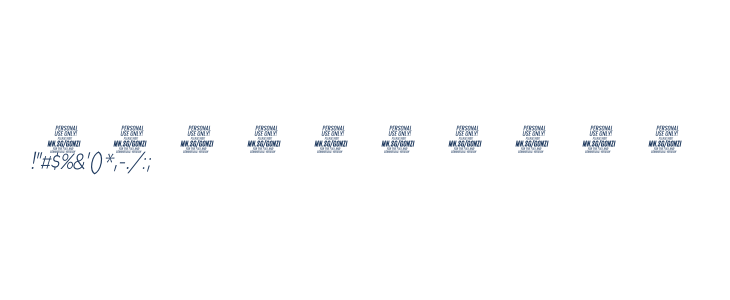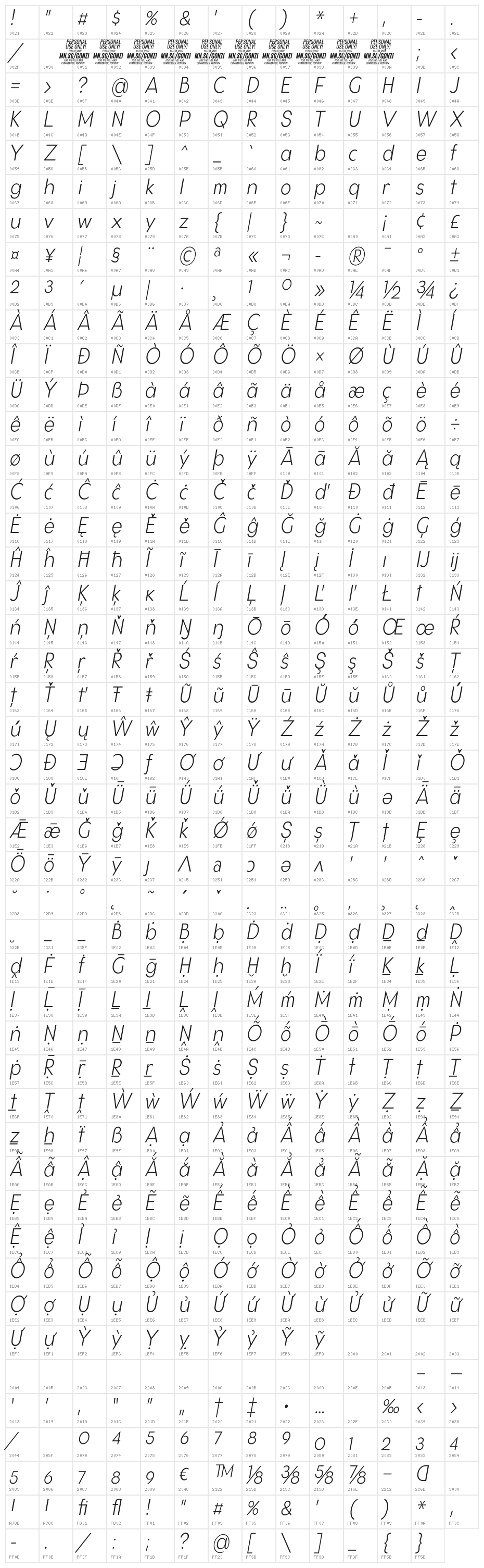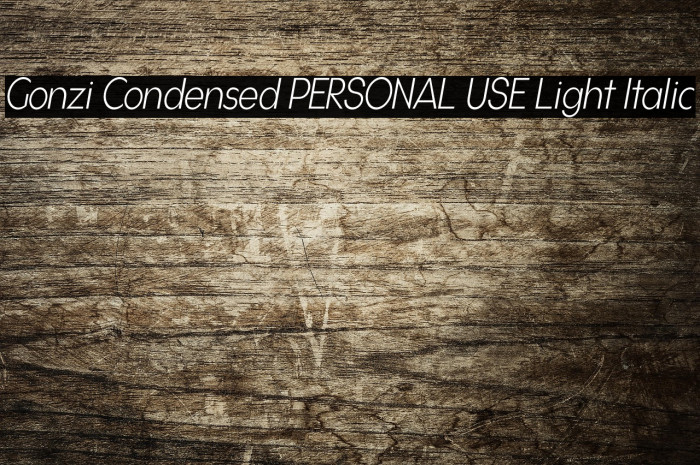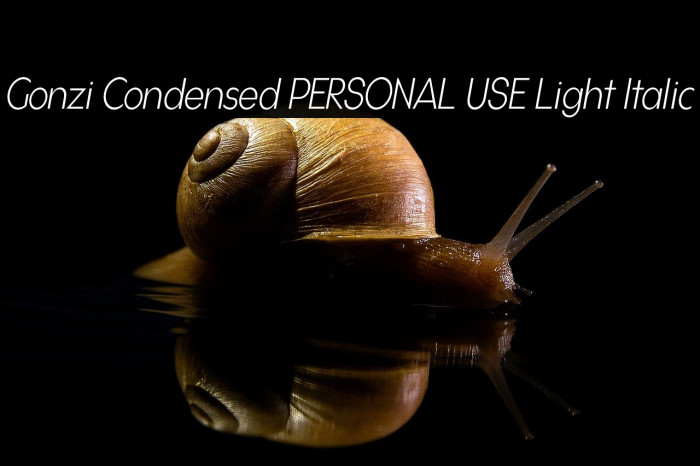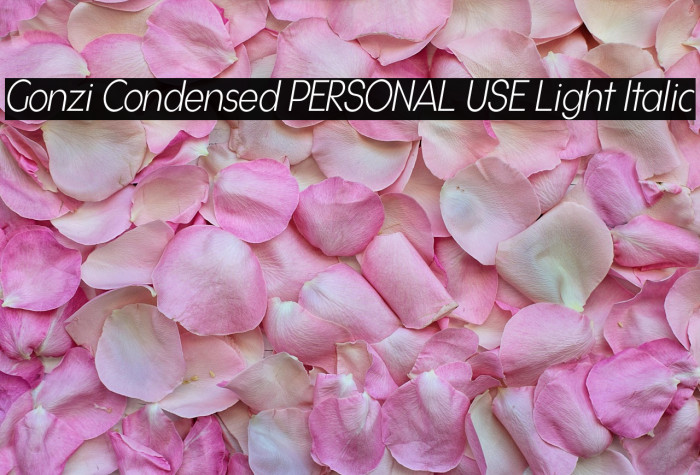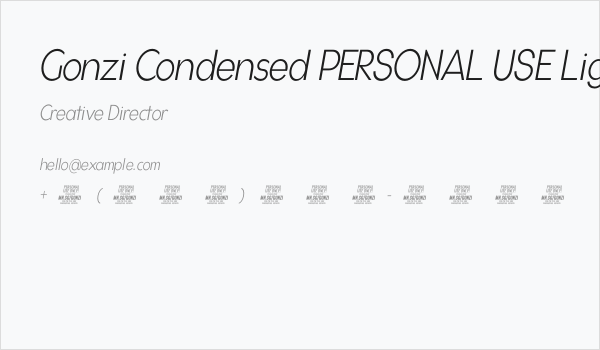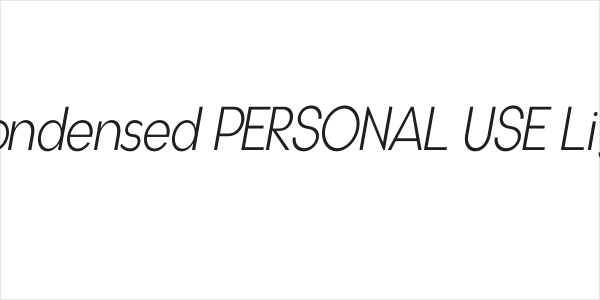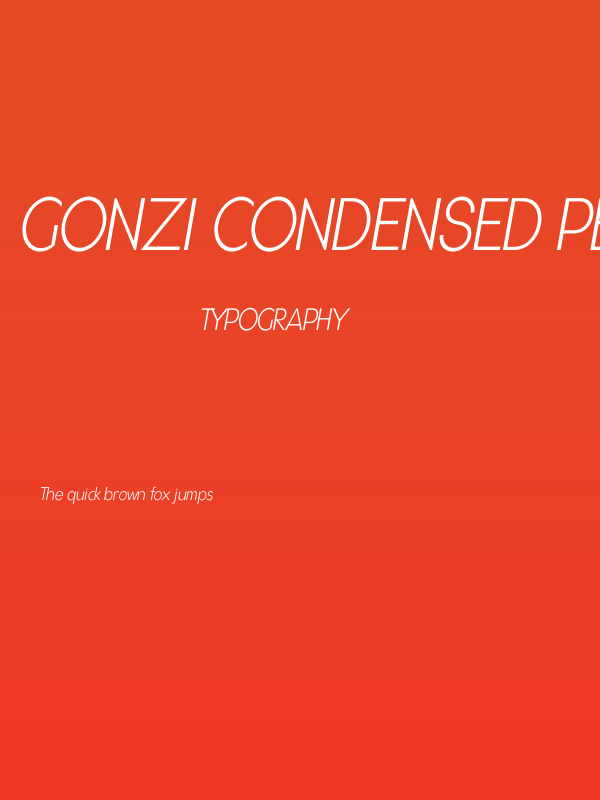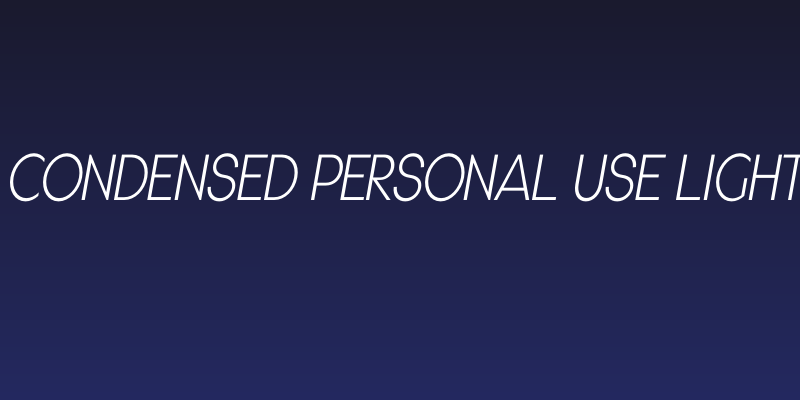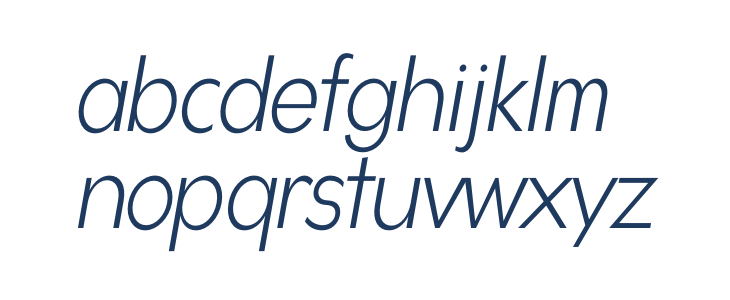
Gonzi Condensed PERSONAL USE Light Italic Font
Gonzi Condensed PERSONAL USE Light Italic Description
This font exhibits a sleek and modern design with a condensed structure, making it ideal for space-saving applications. The letters are crafted with a light weight, giving them an airy and elegant appearance. The italic style adds a dynamic and sophisticated touch, enhancing the overall aesthetic. The characters are well-defined with smooth curves and sharp angles, contributing to a clean and professional look. The font maintains consistent line thickness, offering low contrast, which ensures readability across various sizes. Its contemporary style makes it suitable for a range of design projects.
| Proposed Projects | Ideal for branding, editorial design, advertising, and web design projects where a modern and elegant touch is desired. |